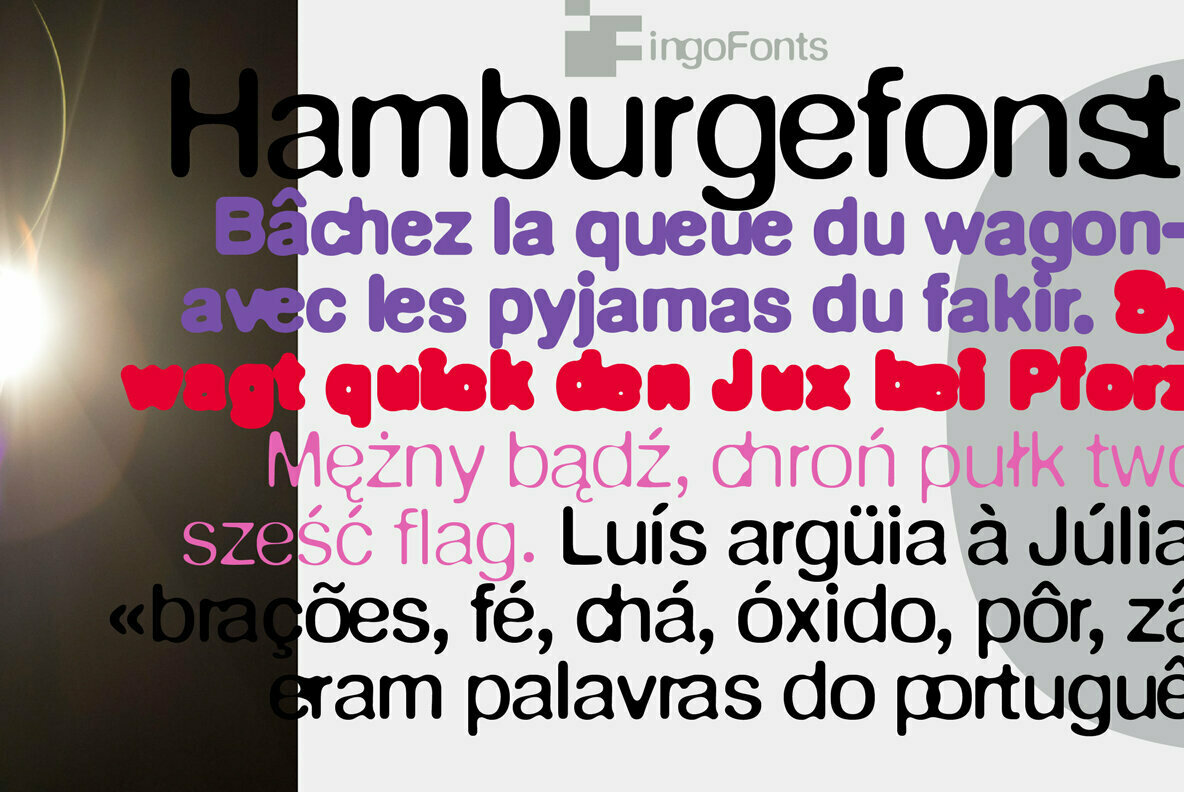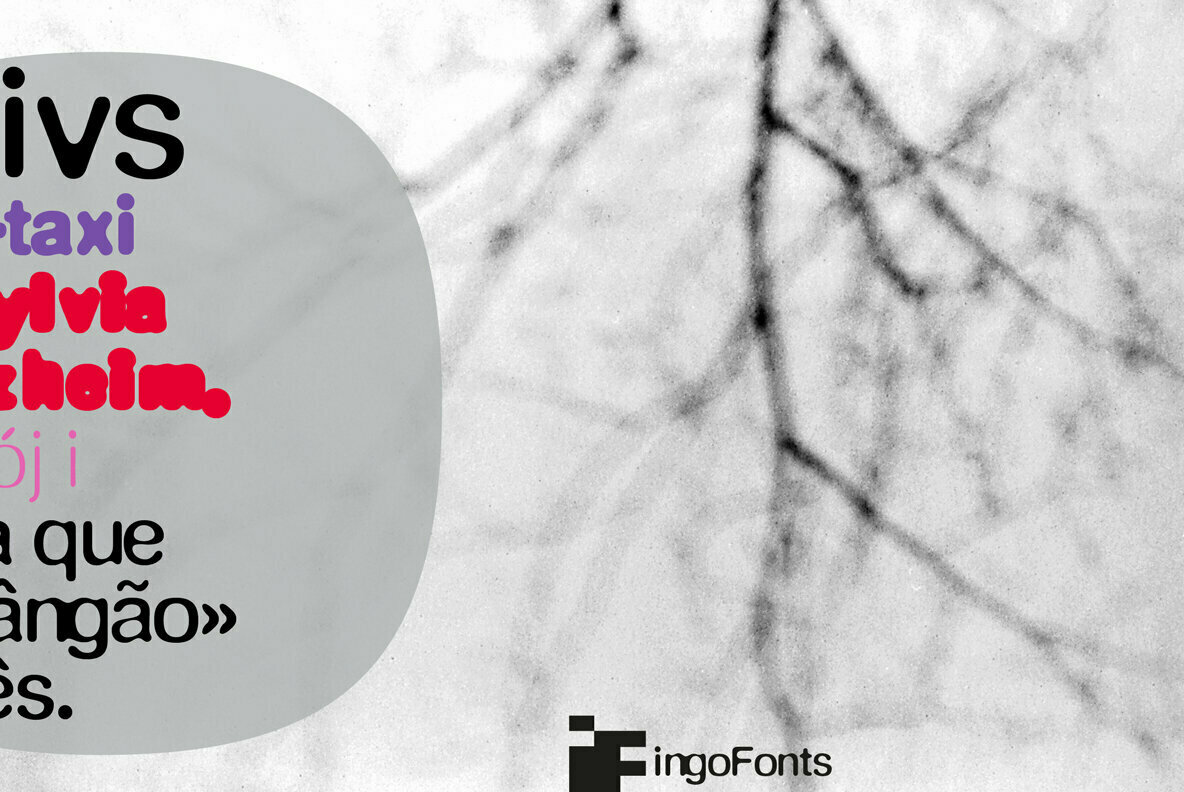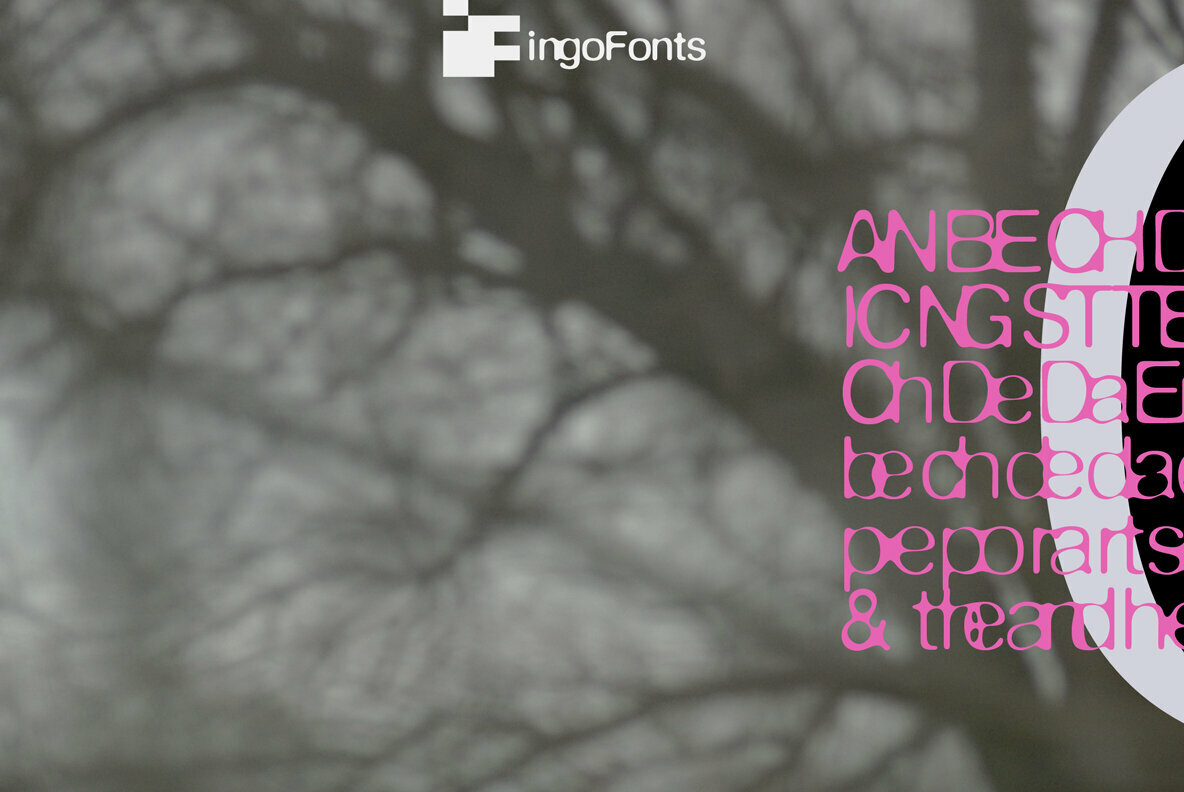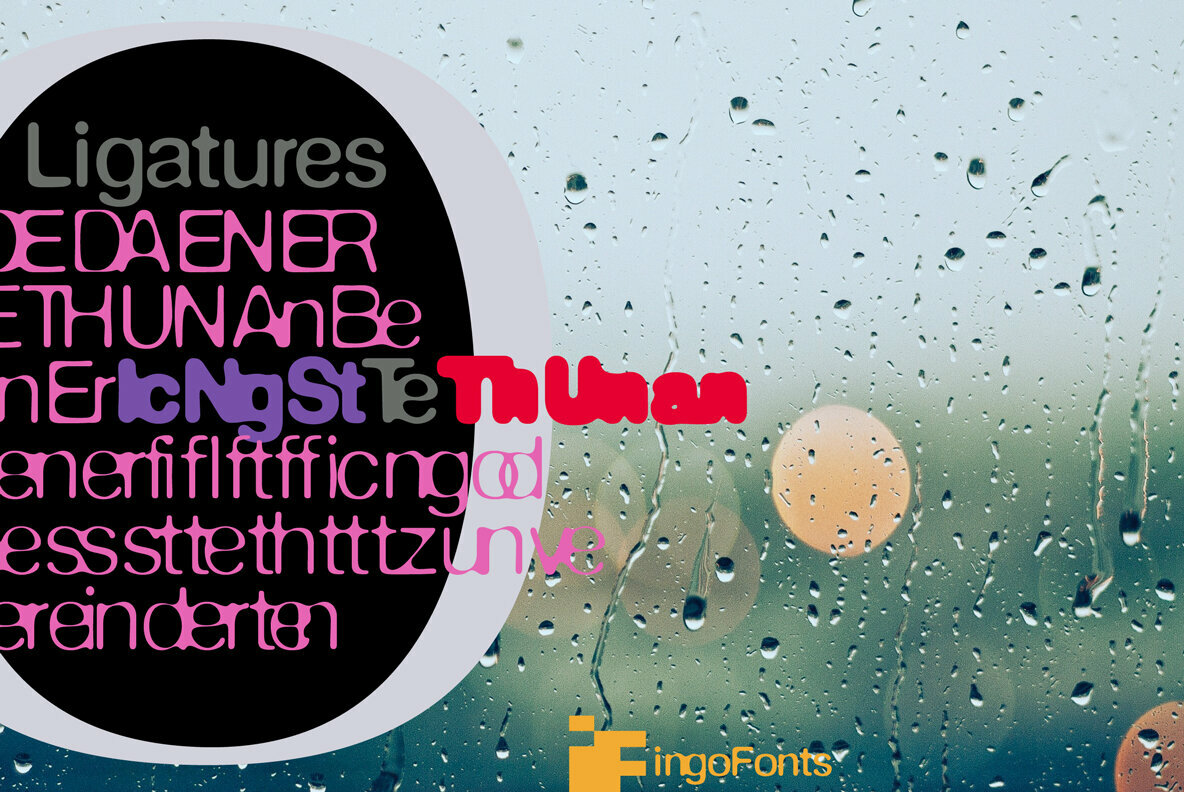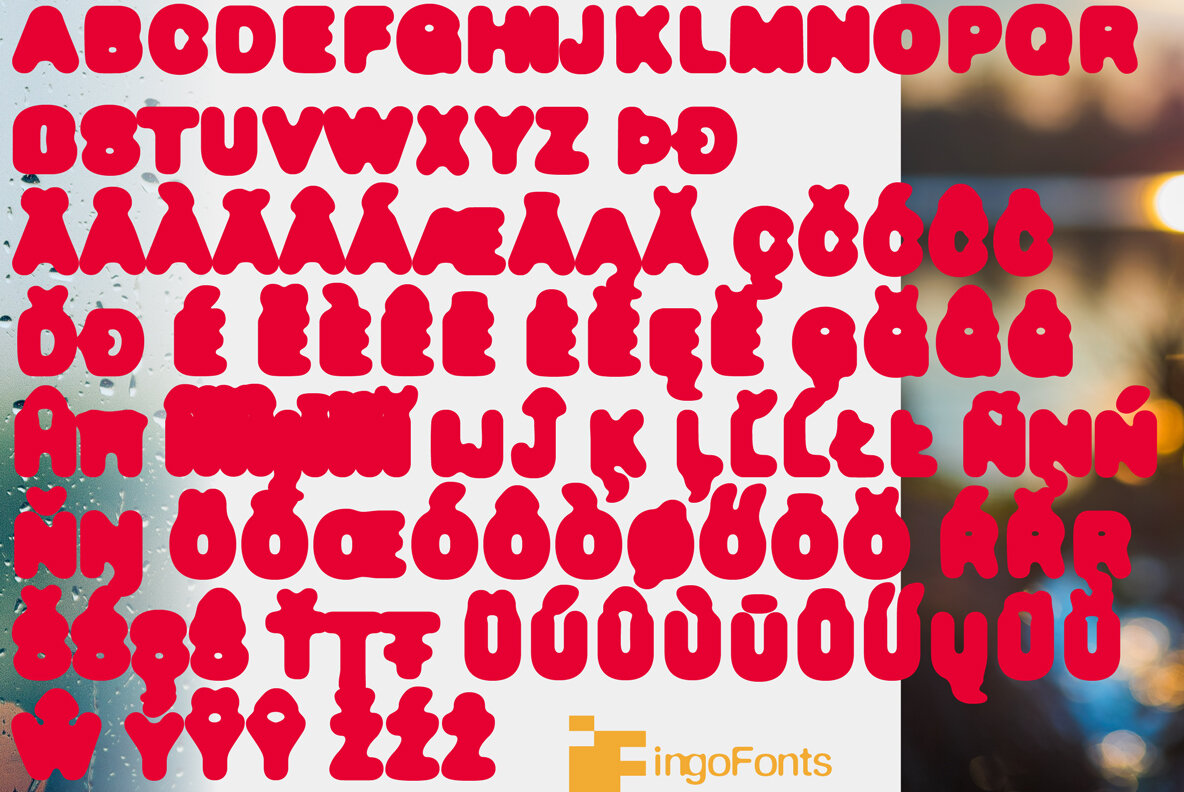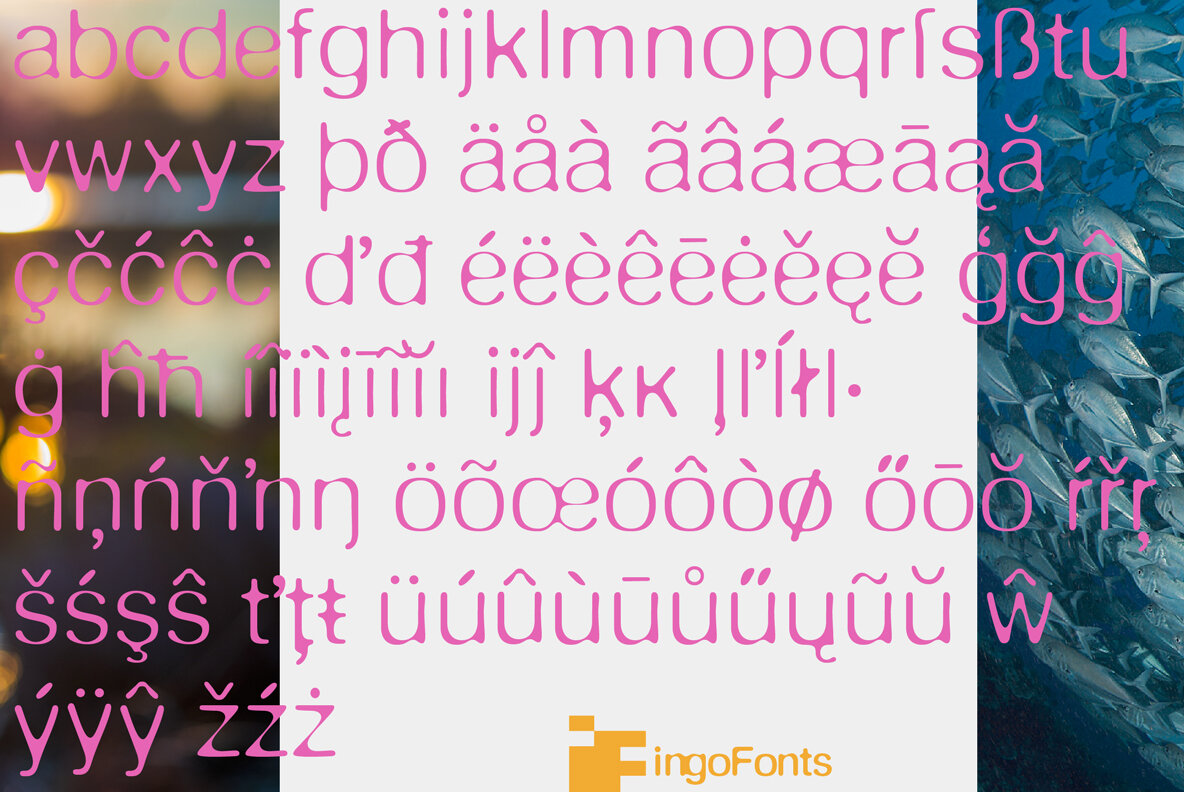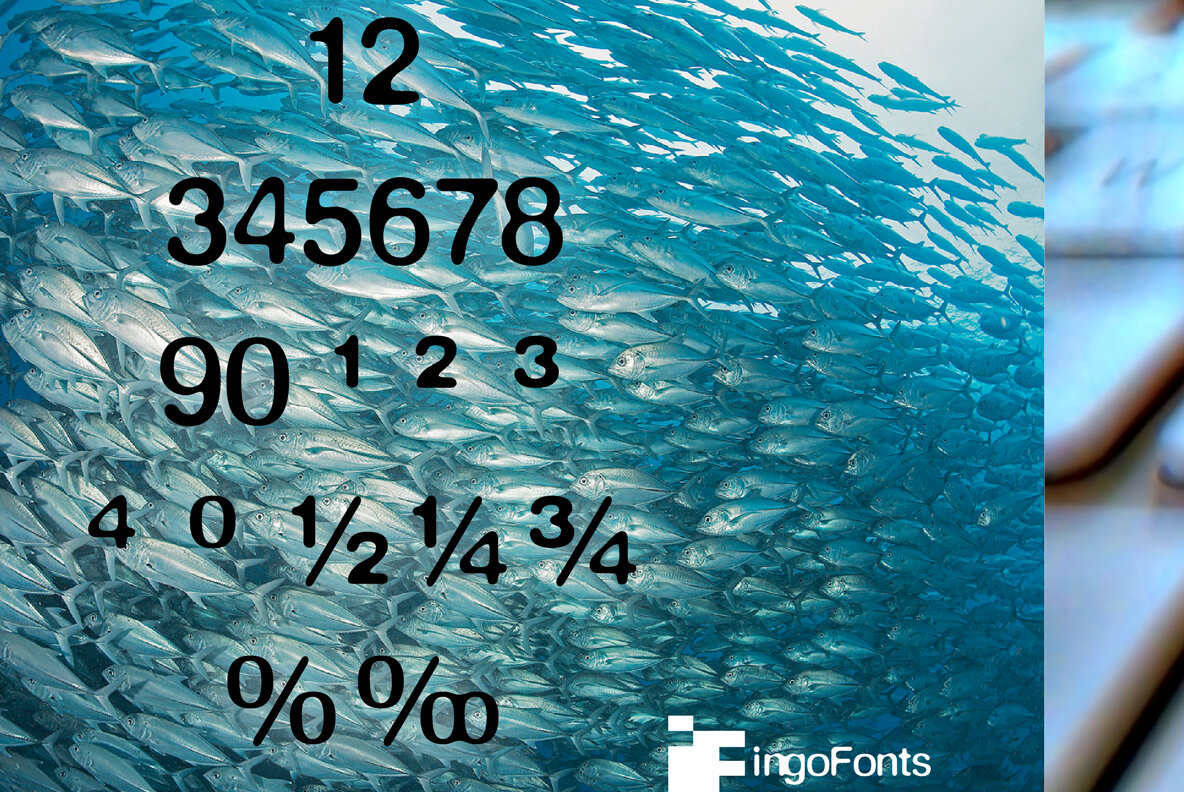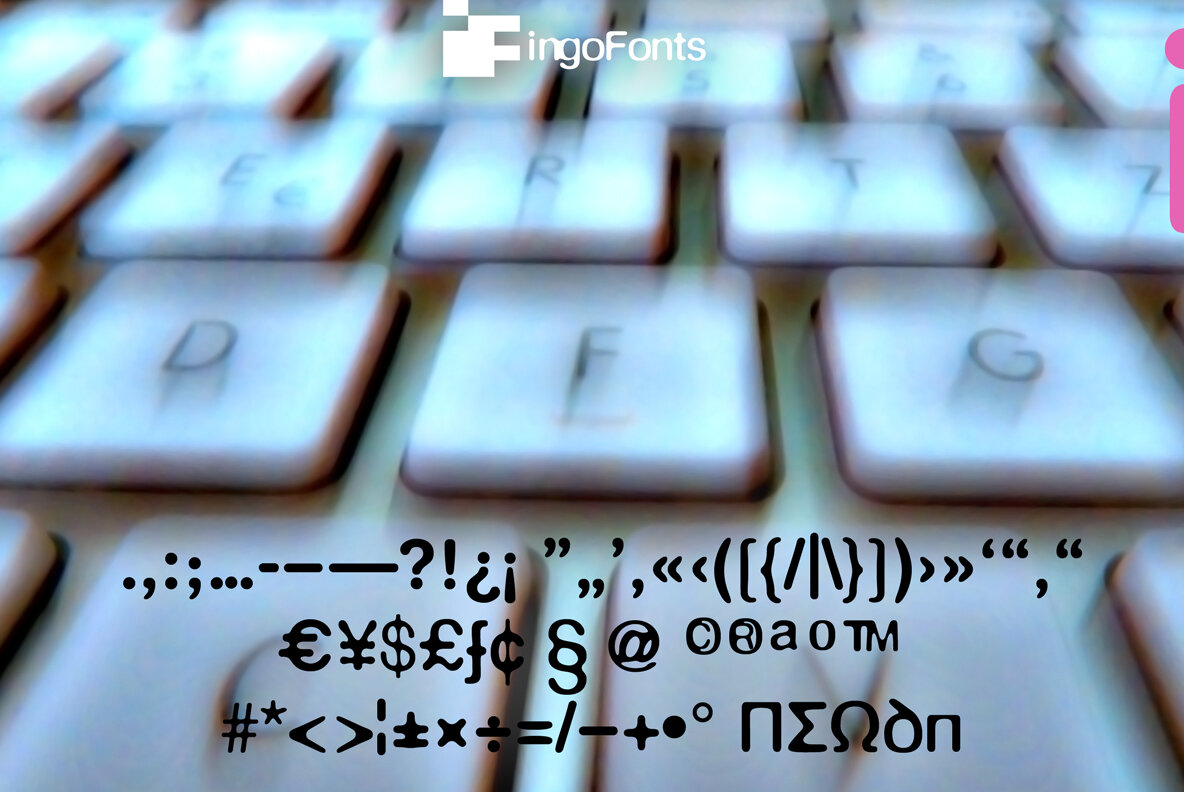
DeFonte Plus
Variation of Helvetica according to the blur principle
The underlying typeface is a kind of ”Helvetica“, the only true ”run-of-the-mill“ typeface of the twentieth century. The distorted principle used simulates the photographic effect of halation and/or overexposure.
The light typestyle, DeFonte Léger, nearly breaks on the thin points, whereas on those points where the lines meet or cross, dark spots remain. The characters are ”nibbled at“ from the inner and outer brightness.
On the normal and semibold typestyles, DeFonte Normale and DeFonte Demi Gras, the effect is limited almost exclusively to the end strokes and corners, which appears to be strongly rounded off.
The bold version DeFonte Gros is especially attractive. As a result of ”overexposure“, counters (internal spaces) are closed in, while characters become blurred and turn into spots; new characteristic forms are created which are astoundingly legible.